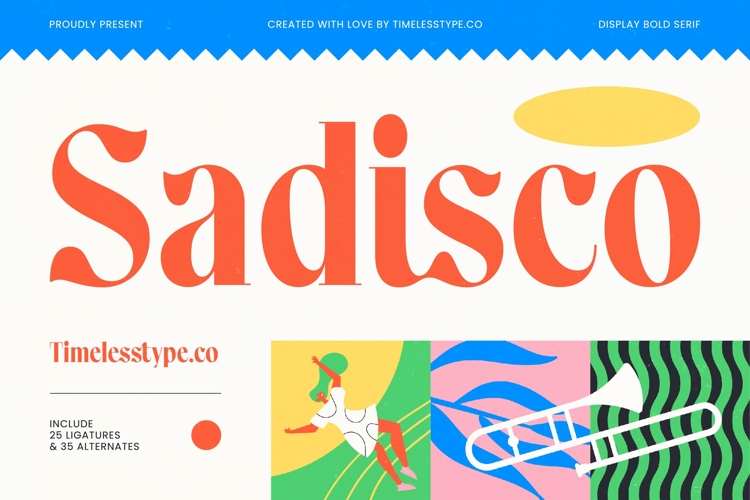
Sadisco - Display Bold Serif
Sadisco is a bold modern–retro serif crafted with expressive curves, sharp contrast, and lively personality inspired by playful editorial aesthetics. Designed to stand out effortlessly in branding, posters, packaging, social visuals, and creative advertising, this typeface blends vintage charm with a fresh contemporary twist. Featuring 25 ligatures and 35 stylistic alternates, Sadisco gives you dynamic options to build striking headlines, rhythmic typography compositions, and a bold identity that instantly grabs attention.